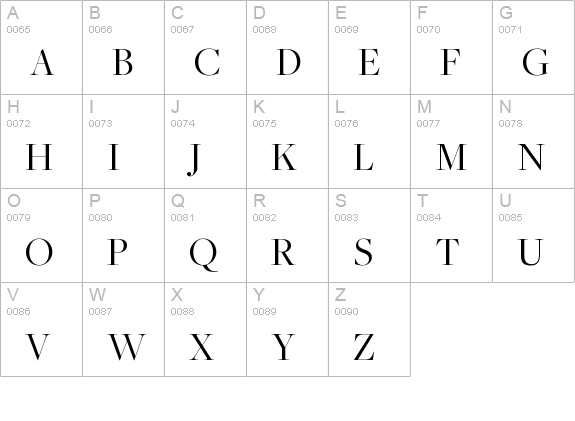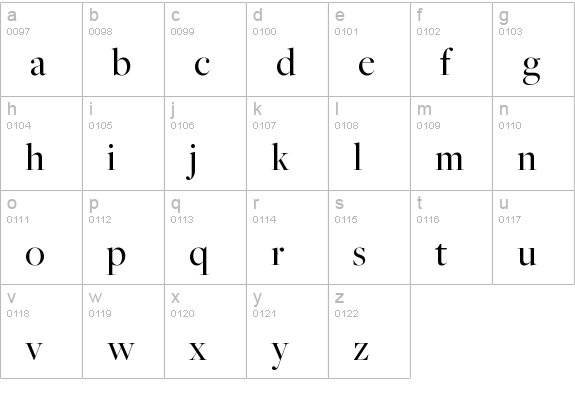
FreightBigBook Font Details
Introducing FreightBigBook font, a versatile and modern typeface that exudes sophistication and professionalism. With its clean lines and bold presence, FreightBigBook is the perfect choice for any design project that requires a touch of elegance. This font is available for free download at FontsMarket.com, making it easily accessible for designers looking to add a touch of class to their work. Whether you're creating a logo, a website, or a marketing campaign, FreightBigBook is sure to make a statement and leave a lasting impression. Download it today and elevate your design projects to new heights.